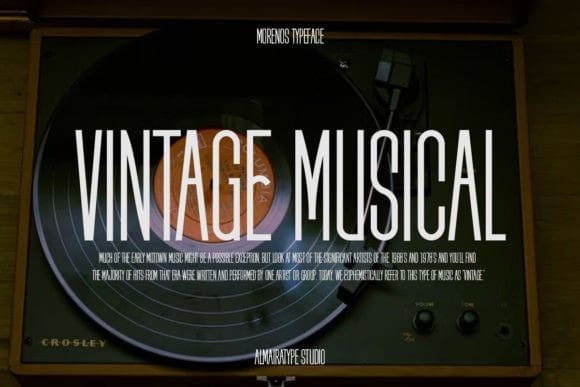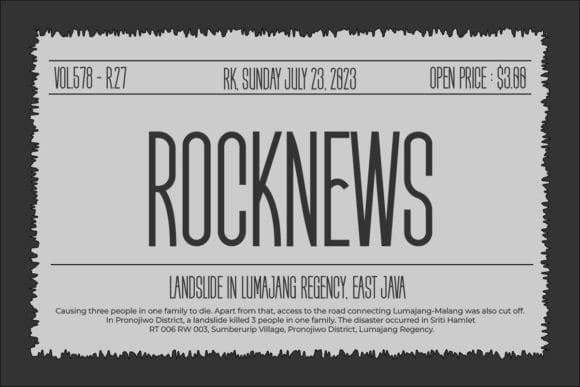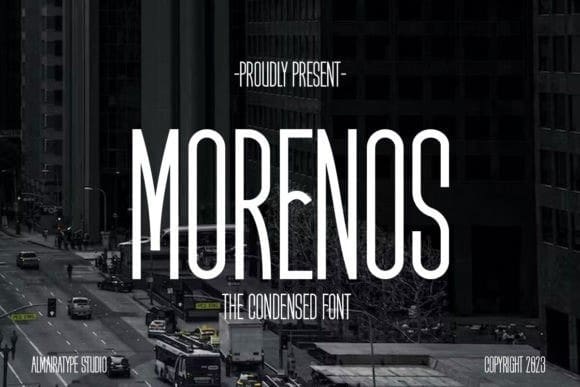
Morenos Font
Morenos Font is a condensed sans serif font that is modern, elegant and cool. This font is suitable for crafts, headlines, branding, business, print, t-shirts, apparel, Cricut, silhouettes and other creative ideas!